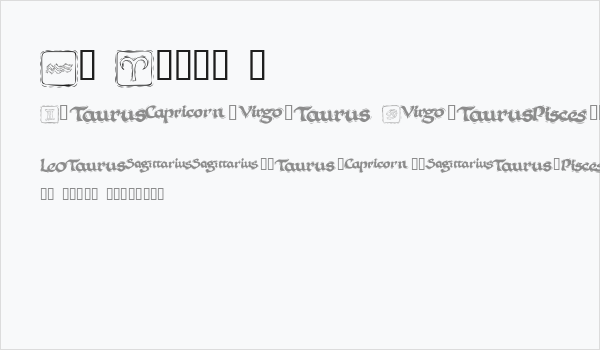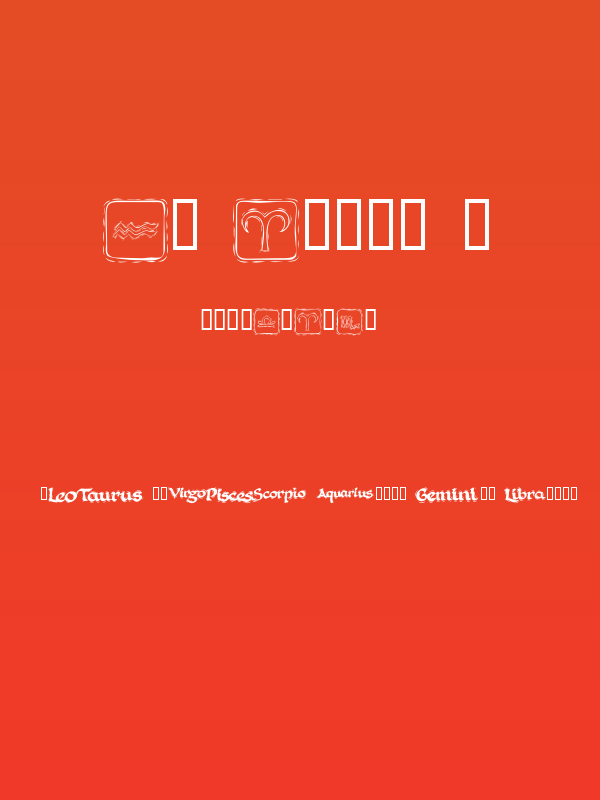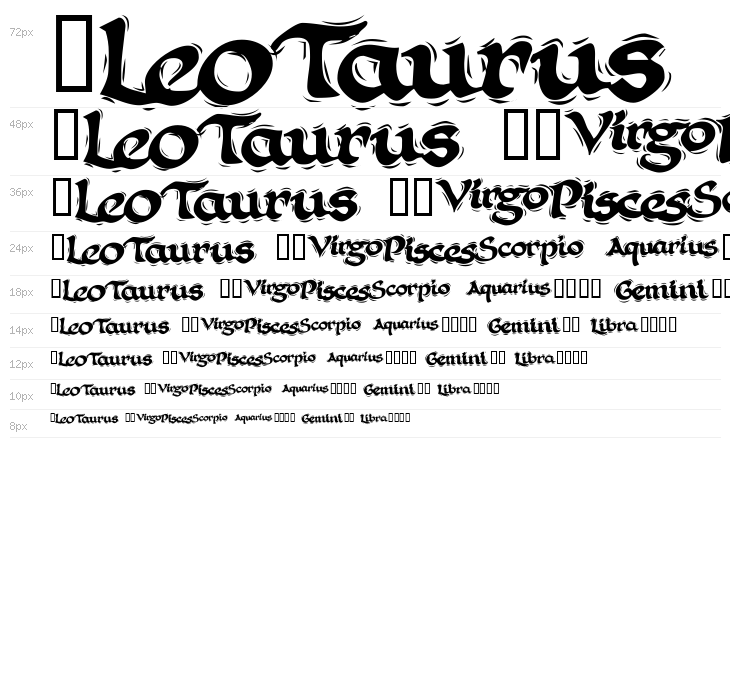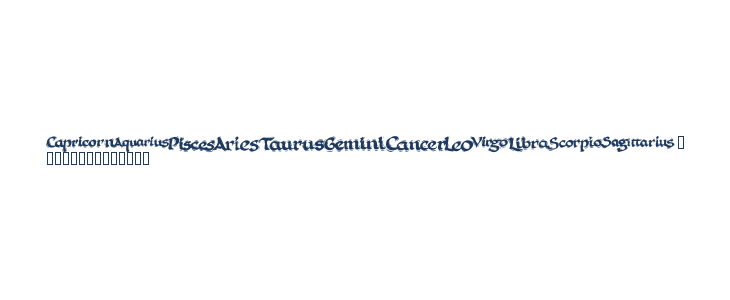
KR Astro 1 Font
KR Astro 1 Description
This font features a decorative style with a focus on astrological symbols. Each character is enclosed within a square frame, giving it a distinct and ornate appearance. The symbols are intricately designed, capturing the essence of each zodiac sign with artistic flair. The font is highly stylized, with a vintage and mystical feel, making it suitable for projects that require a touch of the esoteric or celestial. The detailed borders around each symbol add to the overall decorative quality, making it stand out as a display font.
| Overall Style | Vintage, Mystical, Decorative |
| Use Case | Logos, Headlines, Themed Invitations |
| Proposed Projects | Ideal for astrology-themed designs, mystical event invitations, tarot card designs, or any project needing a celestial touch. |